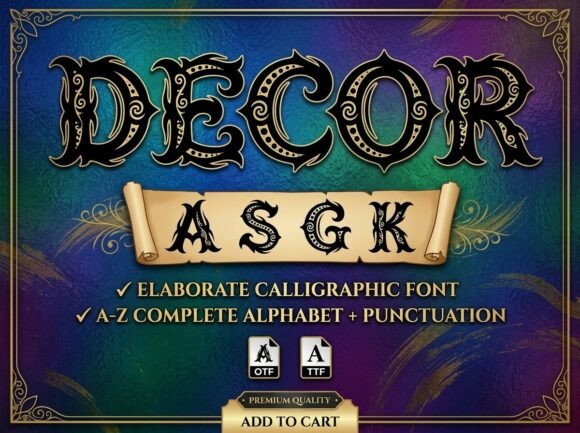
Unleash the Majesty of Decor Font: A Premium Decorative Display Font
Step into a realm of medieval majesty, dark romance, and theatrical architecture with Decor, a premium decorative display font that will elevate your design game to new heights. This stunning font draws deep structural inspiration from Gothic Blackletter calligraphy and traditional iron-forged ornaments, making it the perfect choice for designers and crafters looking to add a touch of elegance and sophistication to their projects.
A Masterpiece of Gothic Inspiration
Decor font is a heavy-weight capital typeface that turns headlines into works of fine historic art. Its structural signature relies on a dual-layered letter envelope, framing a complex interior of hand-carved filigree scrolls, symmetrical dot arrays, and dramatic outer barbs that flare out like dynamic, fiery spikes. This intricate design is reminiscent of Gothic Blackletter calligraphy, which was popular during the Middle Ages and is characterized by its dramatic flourishes and ornate details.
Decor font is an unmatched choice for a wide range of design projects, including:
- Dark academia book titles: Add a touch of mystery and sophistication to your book covers with Decor font.
- Alternative streetwear clothing labels: Make a statement with Decor font on your clothing labels and stand out from the crowd.
- Vintage tattoo parlor signs: Create eye-catching signs that will draw in customers and add to the aesthetic of your tattoo parlor.
- Mystical tarot card boxes: Add a touch of mysticism and luxury to your tarot card boxes with Decor font.
- Luxury liquor labels: Elevate your liquor labels with Decor font and make them stand out on store shelves.
- Heavy metal merchandise headings: Add a touch of aggression and sophistication to your merchandise headings with Decor font.
Why Choose Decor Font?
So why choose Decor font for your design projects? Here are just a few reasons:
- Unique and eye-catching design: Decor font is unlike any other font on the market, with its intricate design and Gothic inspiration.
- High-quality and versatile: Decor font is a high-quality font that can be used for a wide range of design projects, from book covers to clothing labels.
Tips for Using Decor Font
Here are a few tips for using Decor font in your design projects:
- Use it sparingly: Decor font is a bold and eye-catching font, so use it sparingly to avoid overwhelming your design.
- Pair it with a simple font: Pair Decor font with a simple font to create contrast and add visual interest to your design.
- Experiment with different colors: Decor font looks great in a range of colors, so experiment with different colors to find the one that works best for your design.
Decor font is a premium decorative display font that is sure to elevate your design game to new heights. With its unique and eye-catching design, high-quality and versatility, and ease of use, Decor font is the perfect choice for designers and crafters looking to add a touch of elegance and sophistication to their projects. So why wait? Download Decor font today and start creating stunning designs that will leave a lasting impression.